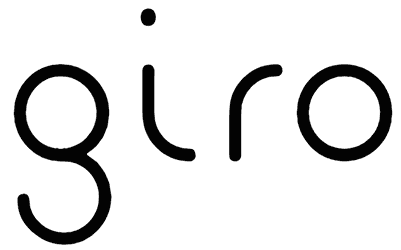
Giro Font
Designed byMarcelo Magalhaes Pereira
Get well-designed for cartoons, food packaging, cosmetic brands, and stationery using this rounded font. Giro with a futuristic touch is eager to sweeten your typography via its modern look.
As a sans serif font, it comes in two different styles to make your writing design assorted. Although it is just available in lowercase letters, it puts every possible effort to pull ahead of others in a moment.
Giro is an informal sans serif typeface.
Designed for an independent music label, it was part of the graduation project of designer Marcelo Magalhães.
This typeface can be used on logos and music poster design.